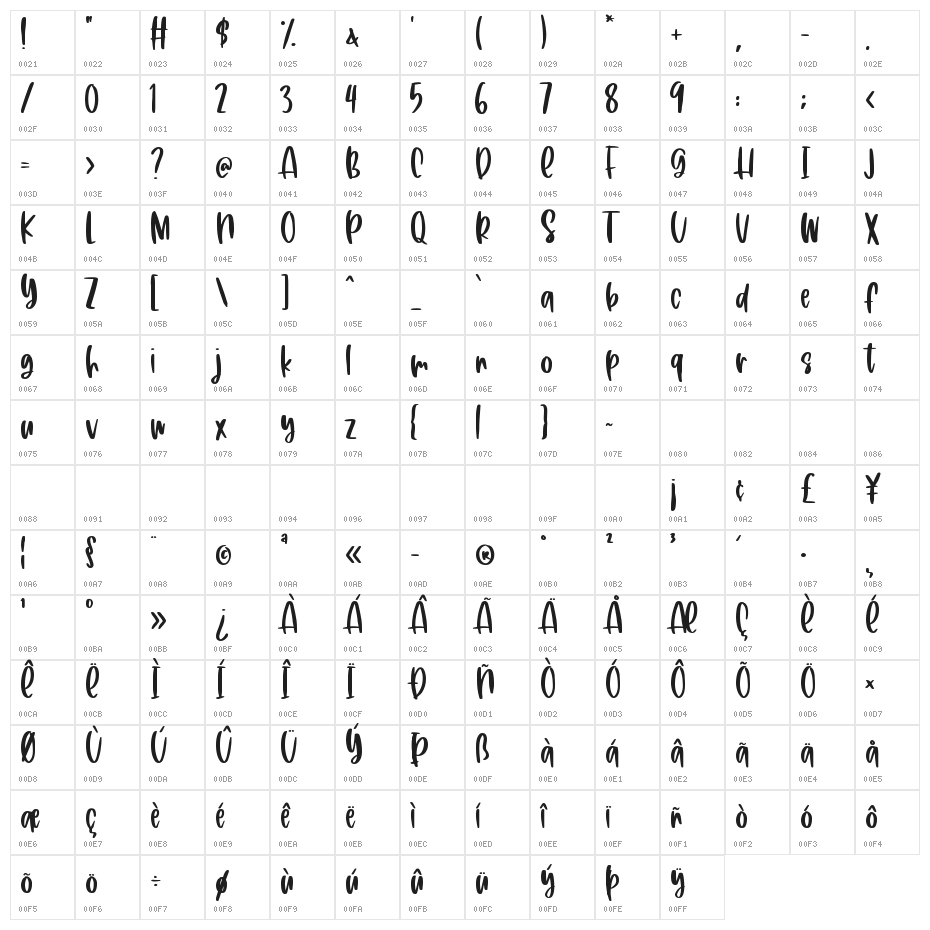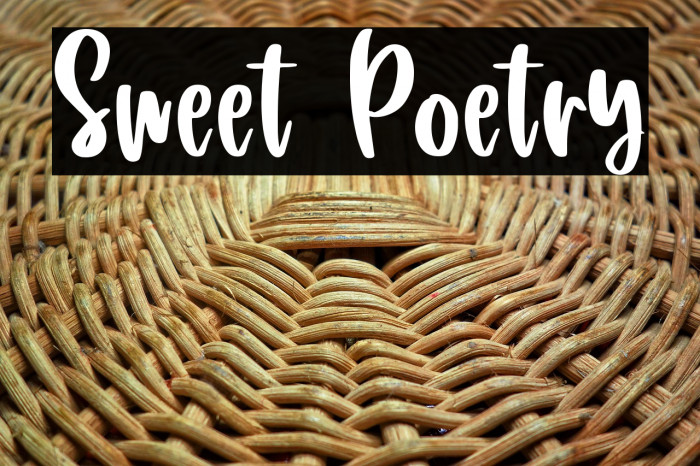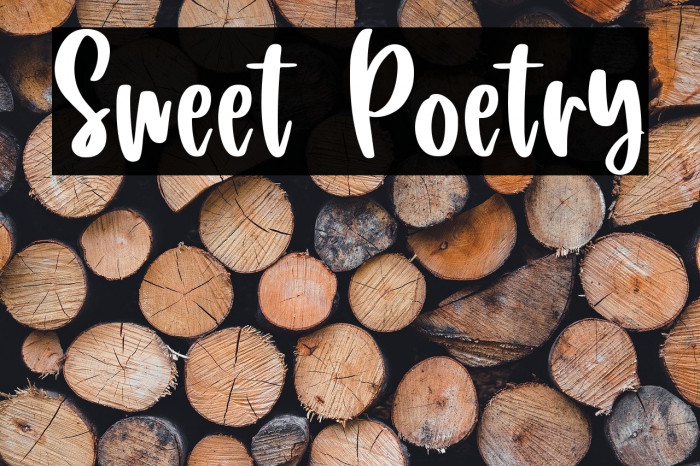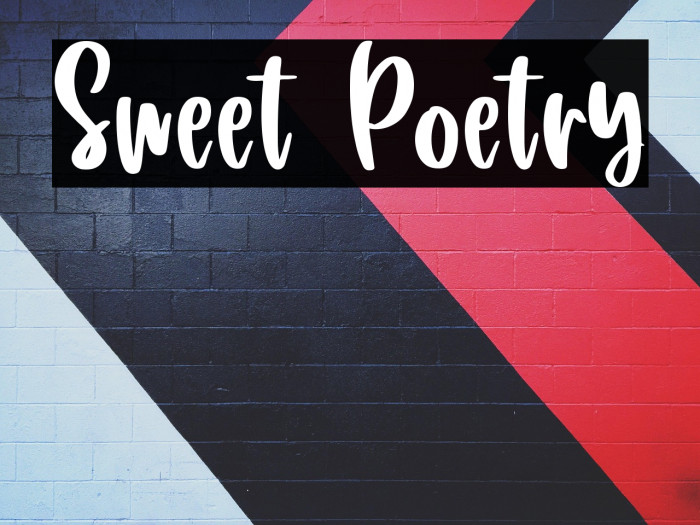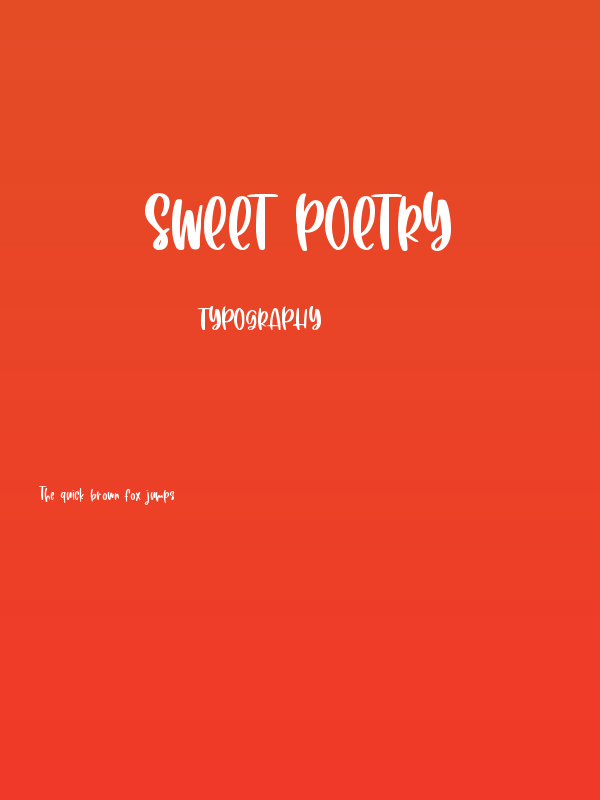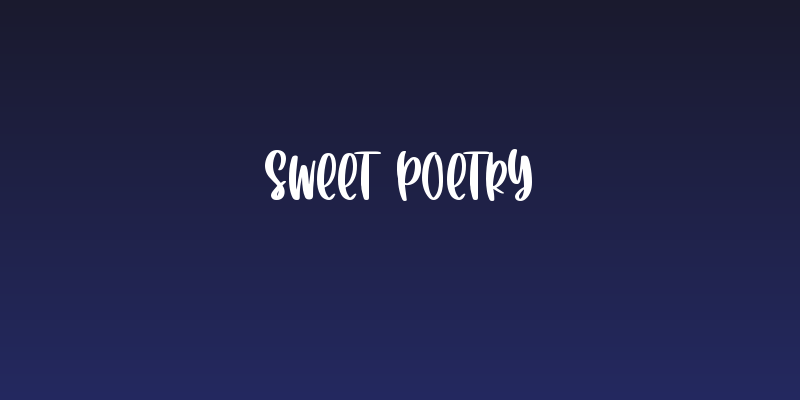
Sweet Poetry Font
Sweet Poetry Description
A playful and bold handwritten font with a casual and friendly appearance, featuring smooth curves and a slightly irregular baseline.
| Overall Style | Casual and friendly |
| Proposed Projects | Greeting cards, invitations, posters, and social media graphics. |